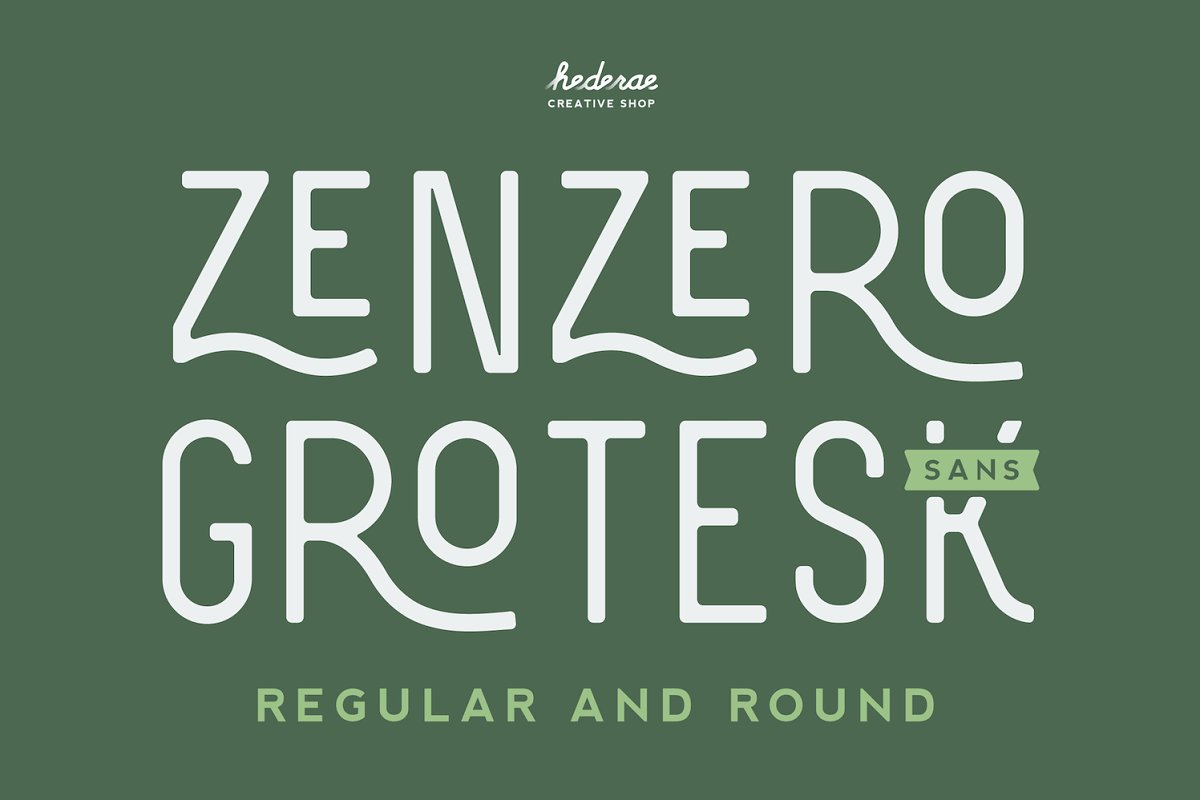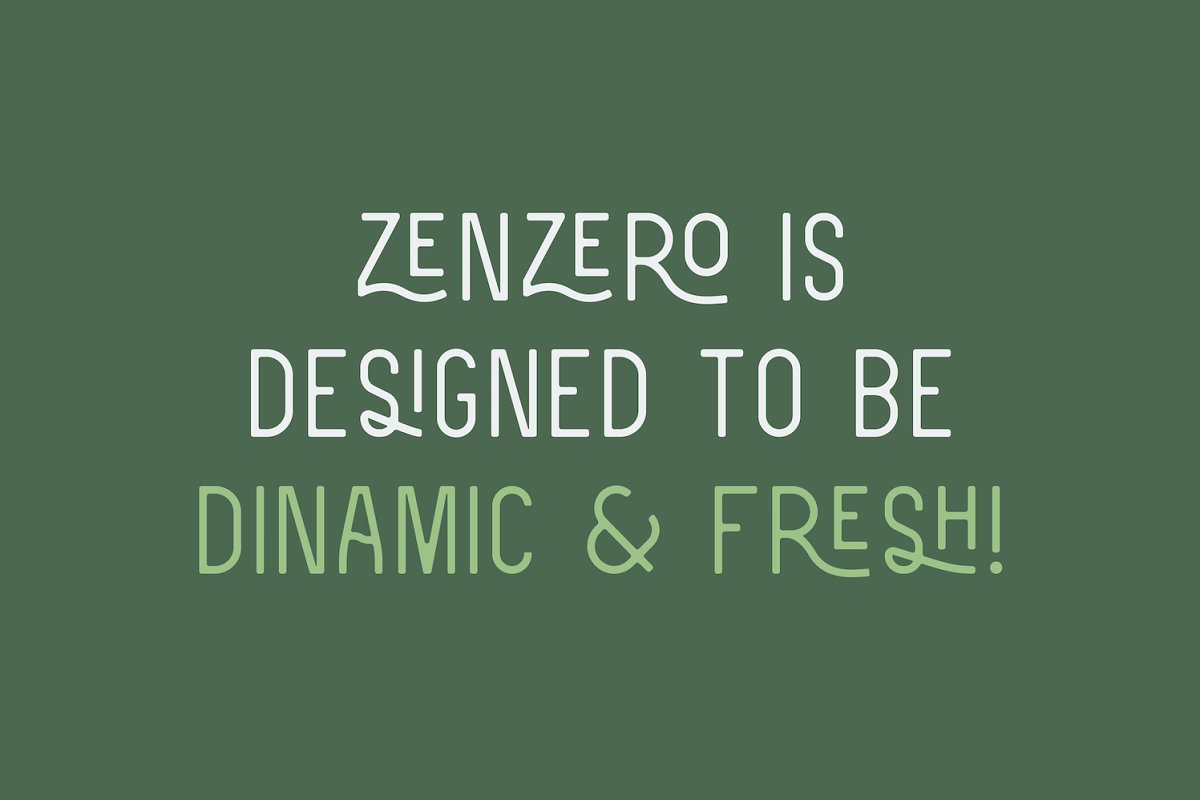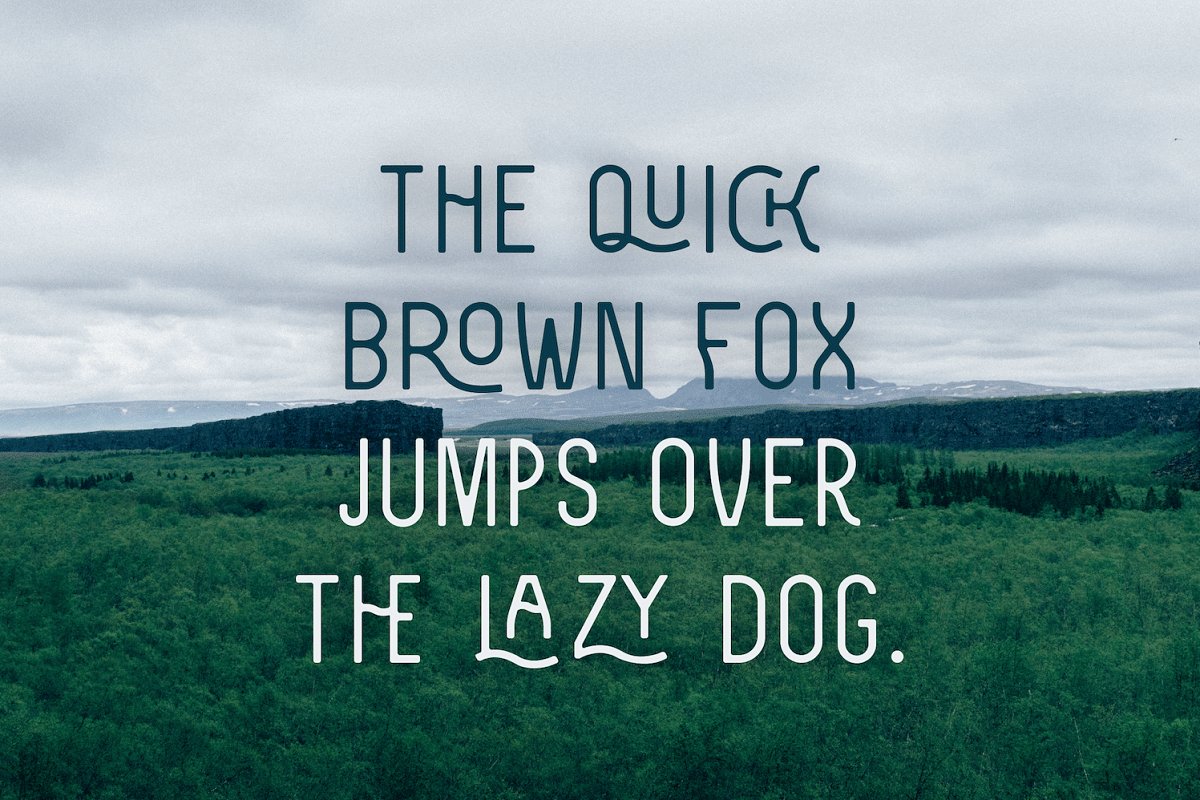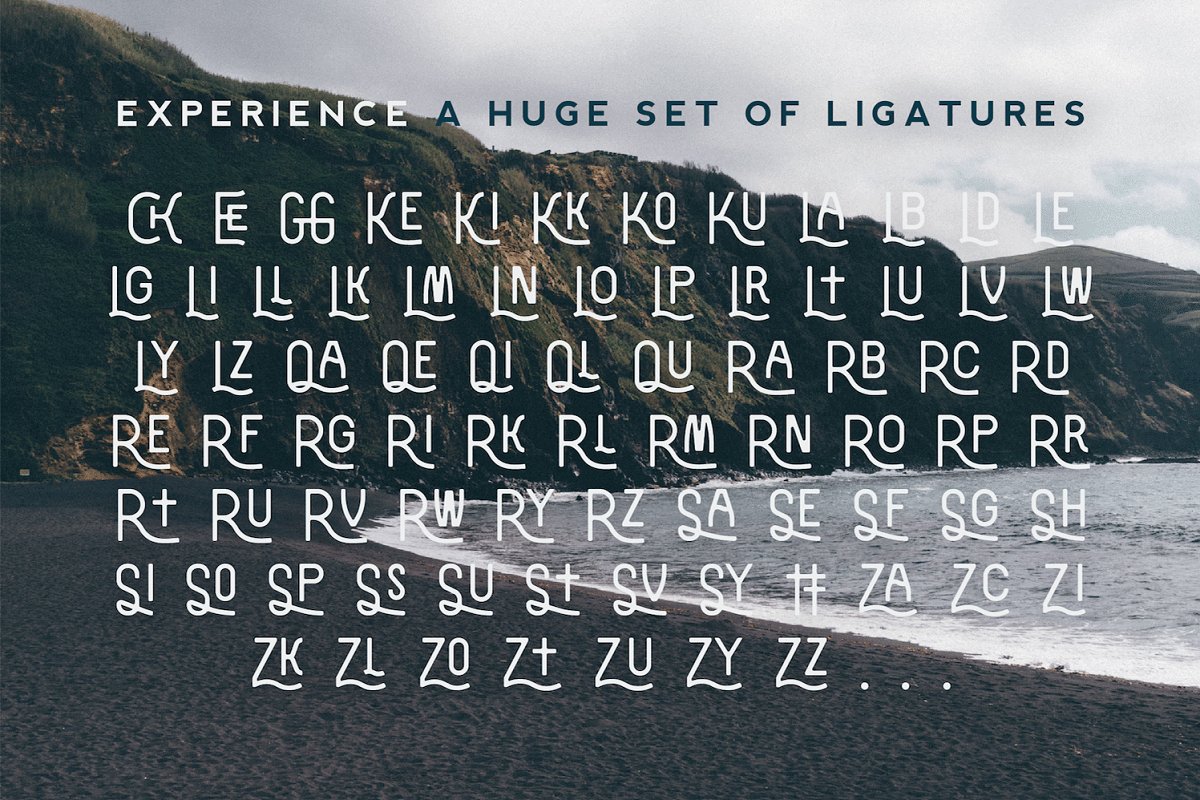
About the Zenzero Grotesk Sans RegularRound Font
A fresh, eccentric and stylish display font, Zenzero Grotesk is a Industrial based font that can be given different uses, Its main virtue is the endless number of possibilities for you to write words, texts or paragraphs, It boasts tons of ligatures and stylistic alternate glyphs, for a complete control of the final result, INCLUDES:2 Opentype Font Styles Regular & RoundThe Webfont version of each fontLanguages supported: Basic Latin, Western European, Euro, Catalan, Baltic, Turkish, Central European, Romanian and Pan Africa Latin